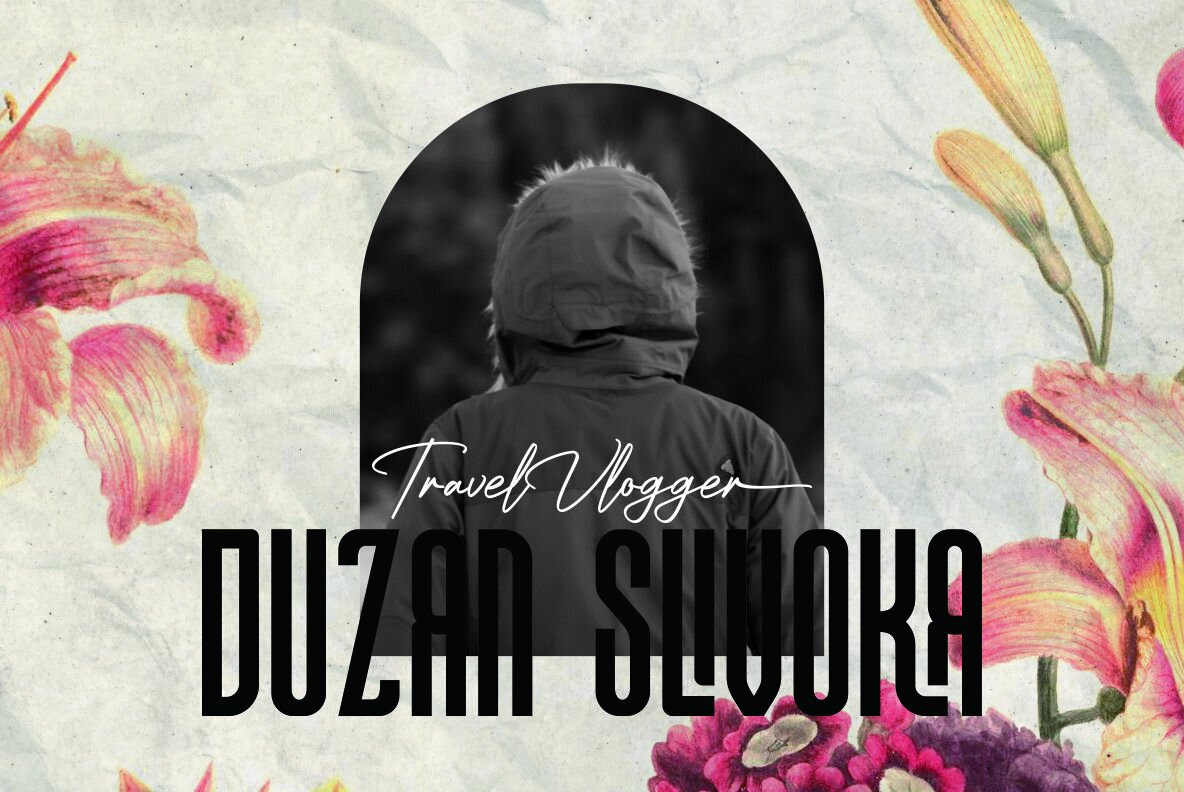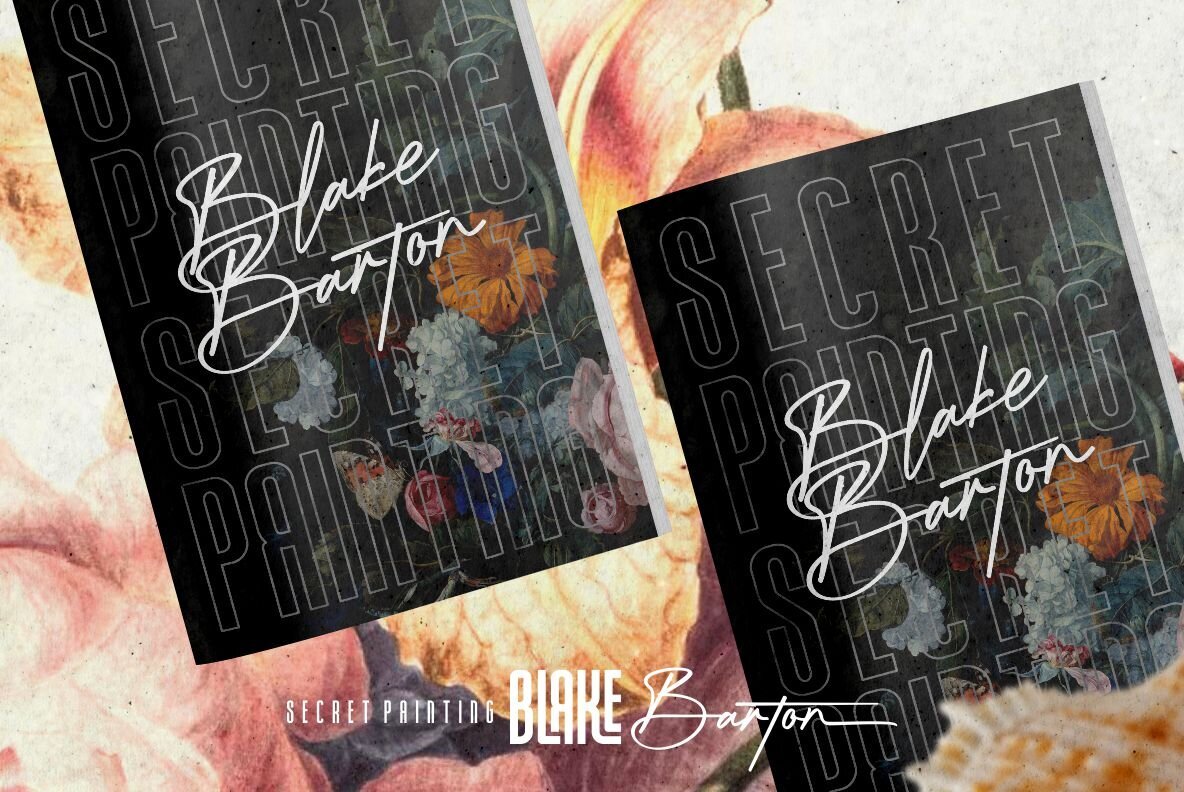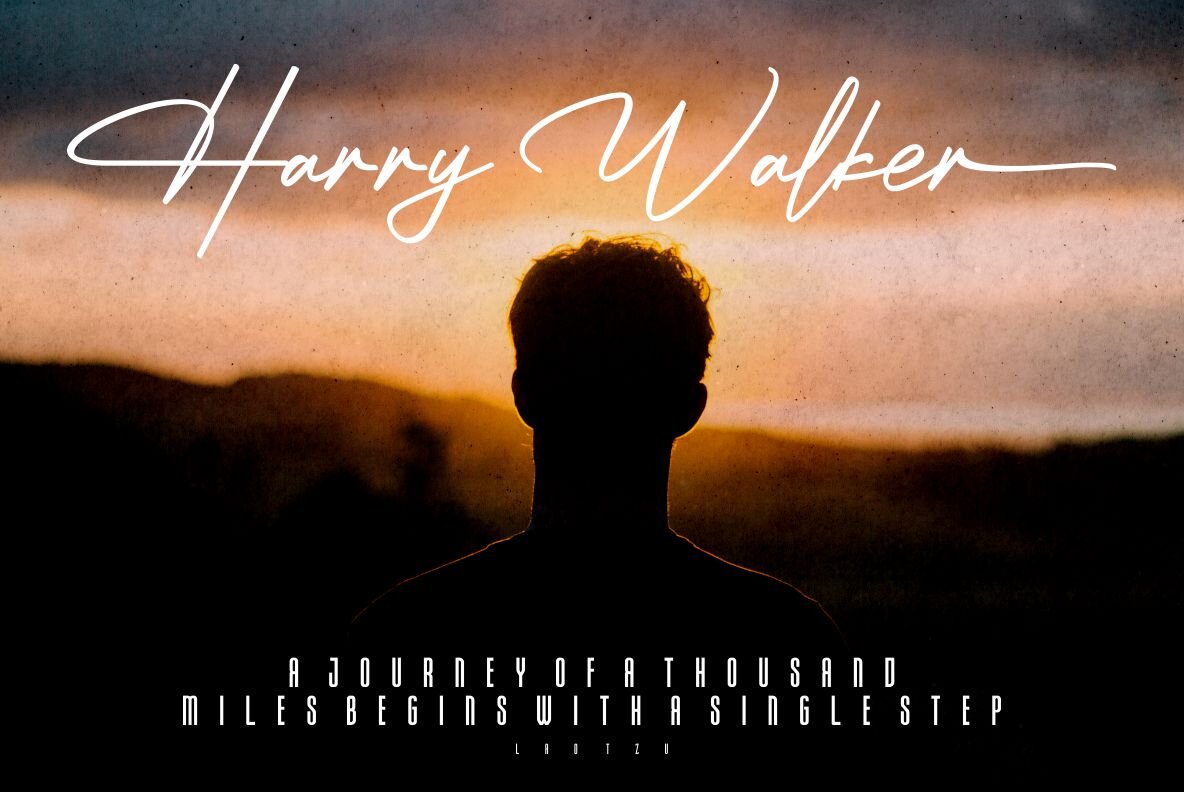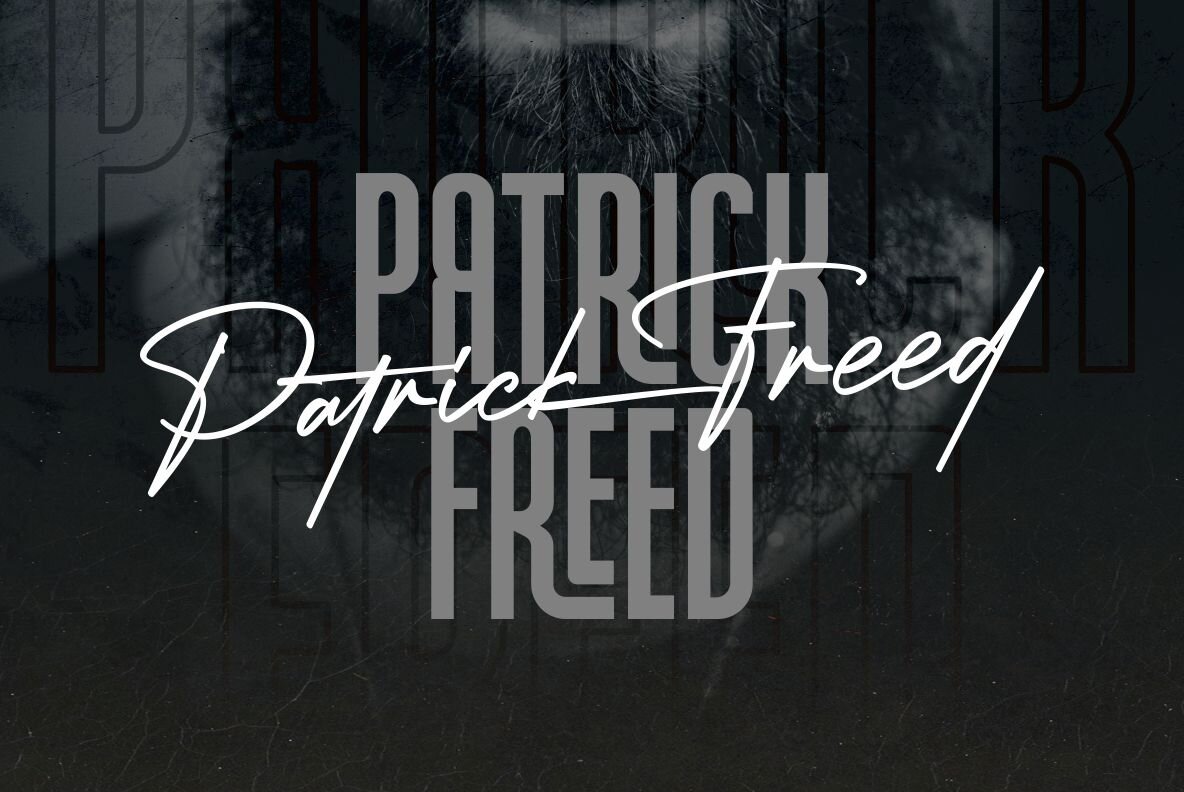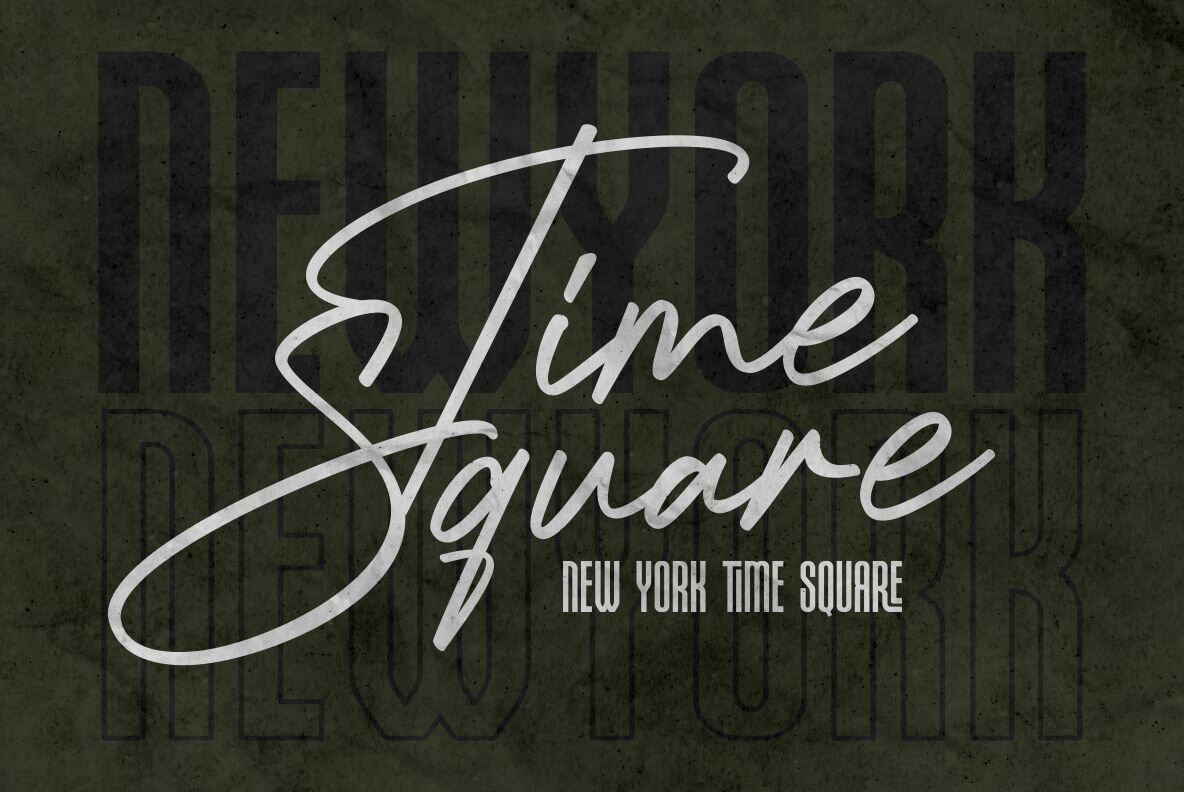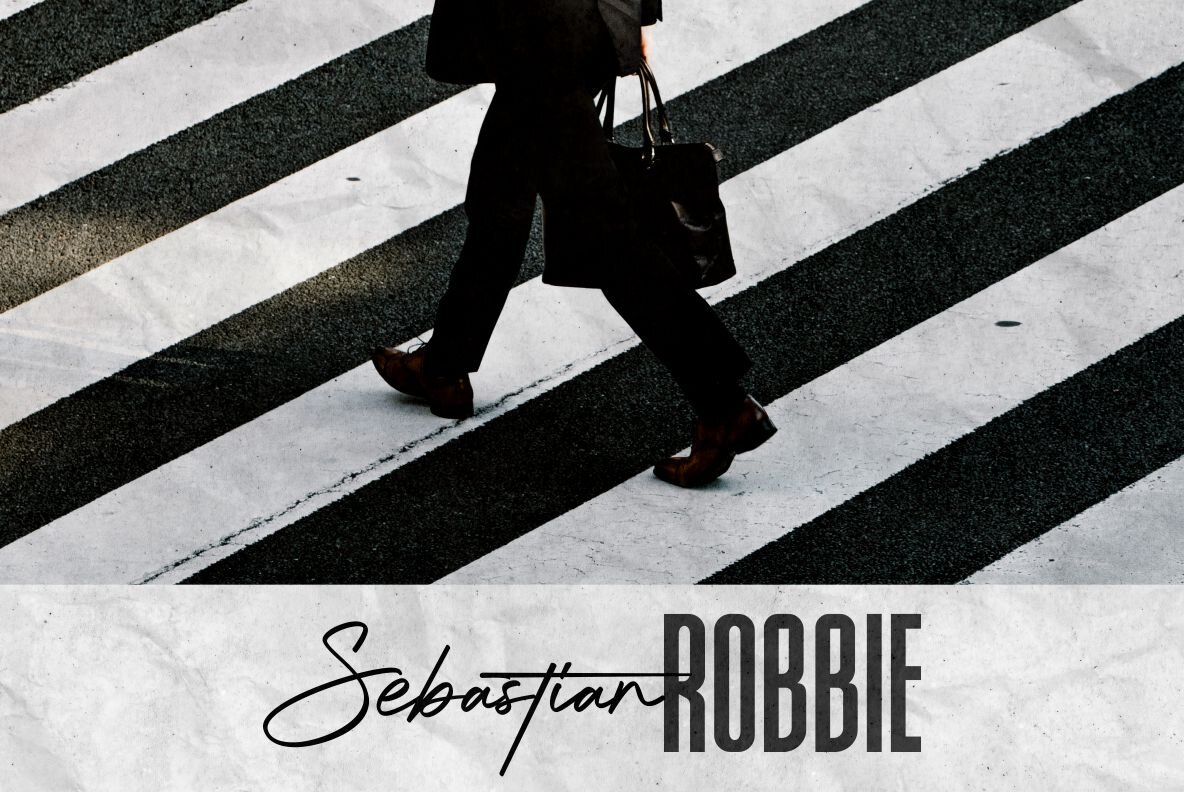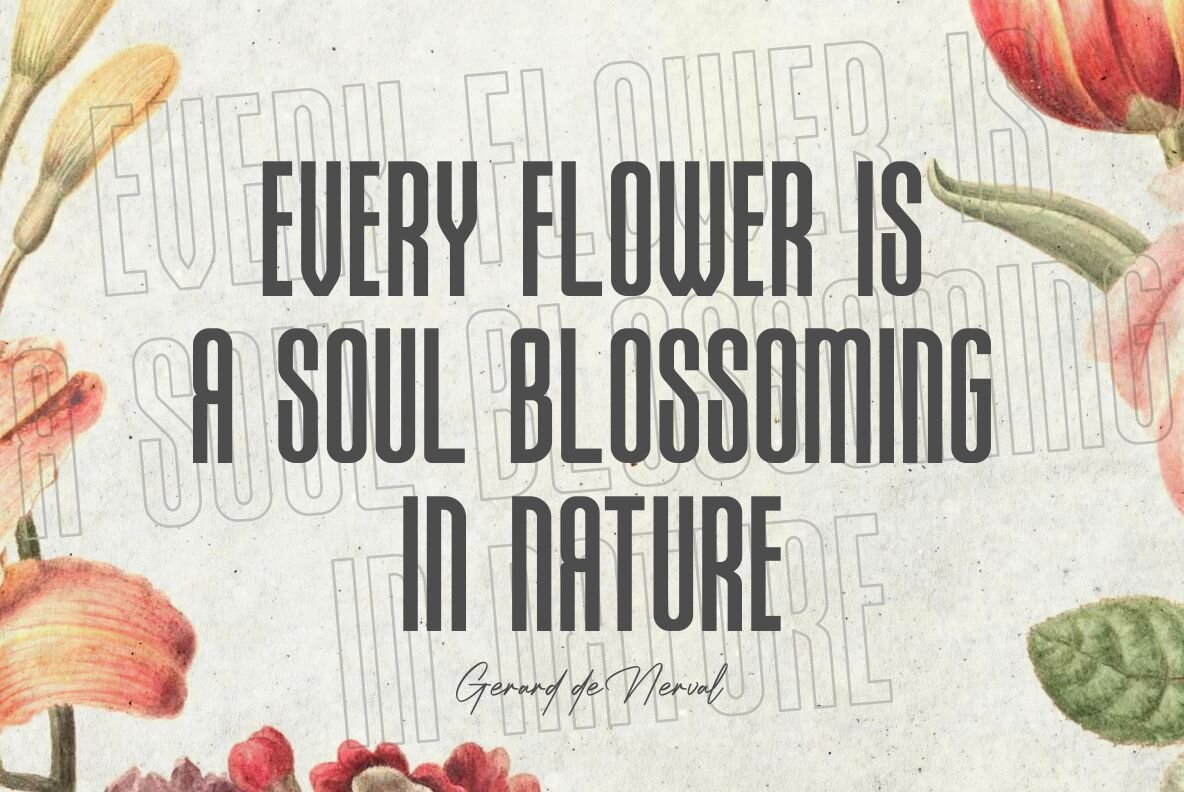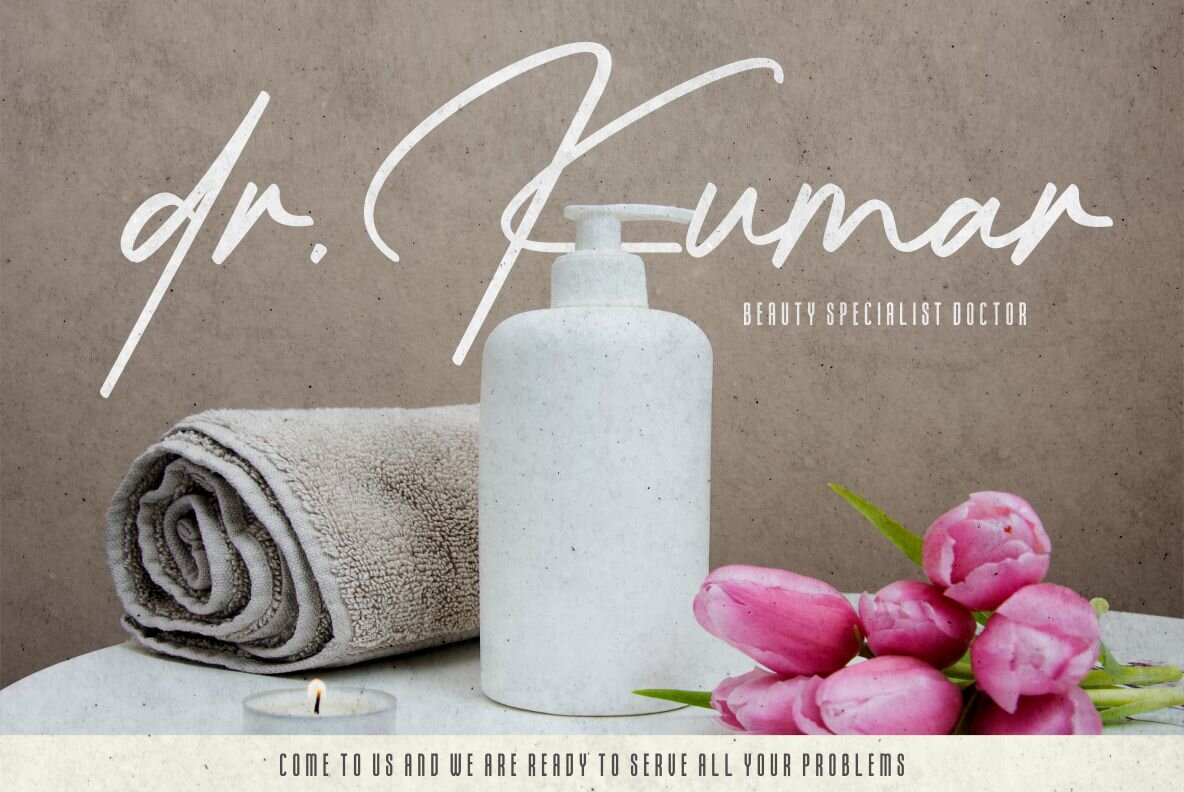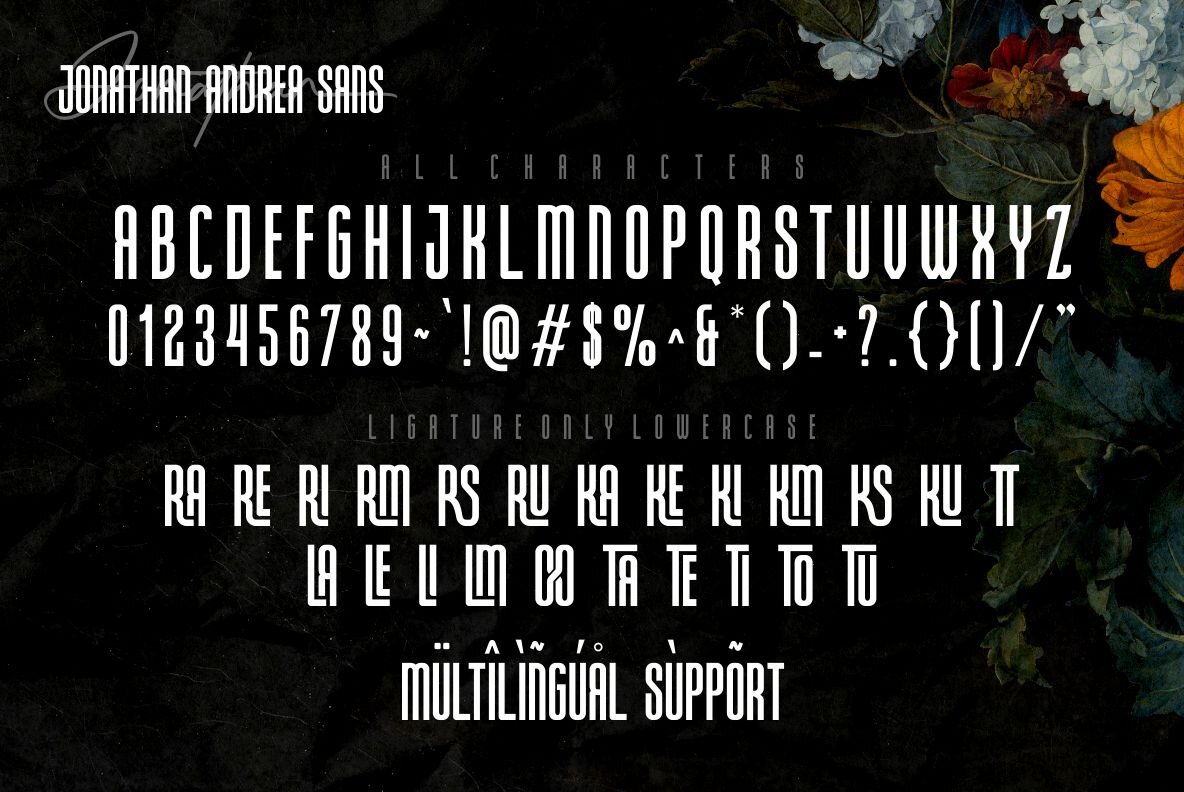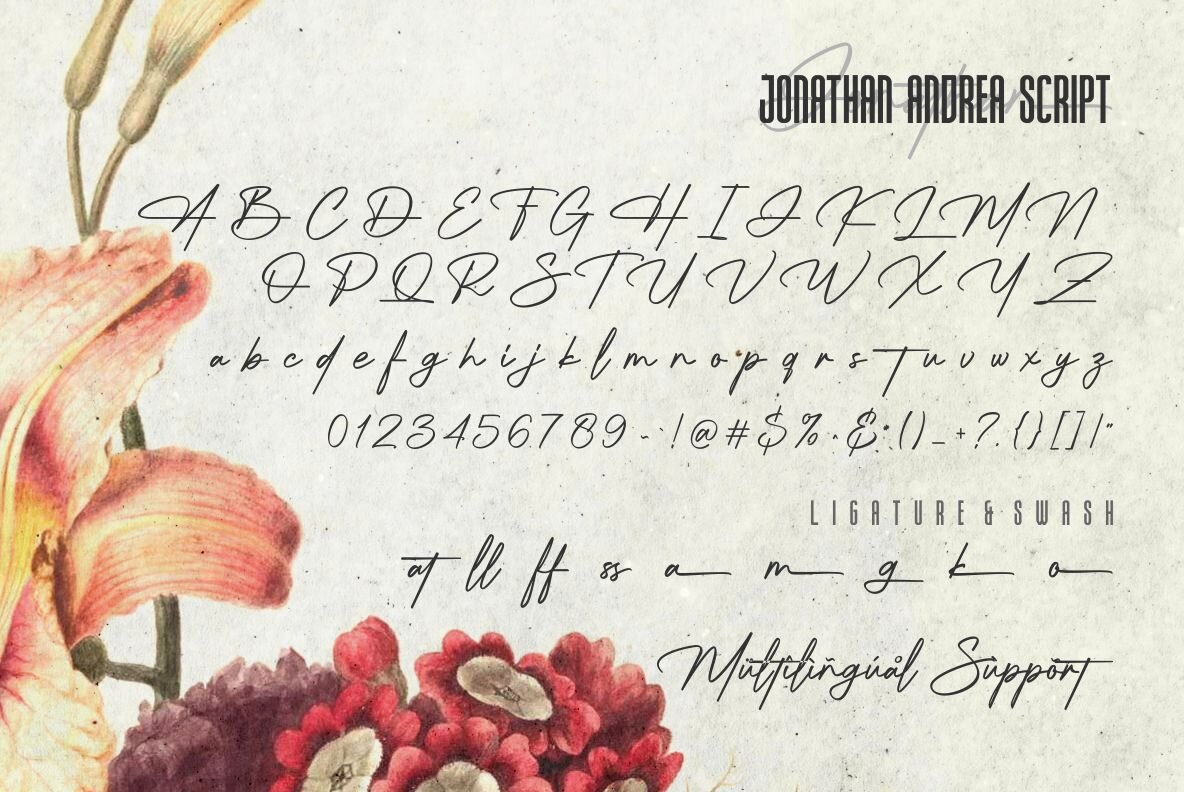
Jonathan Andrea Font
Jonathan Andrea Sans
Jonathan Andrea Sans Outline
Jonathan Andrea Script
The Jonathan Andrea font collection by Ergibi Studio presents a sophisticated mix of modern cursive and elegant sans-serif styles. Crafted with meticulous attention to detail, these fonts create a striking combination suited for designs requiring an elegant, minimalist aesthetic. This font duo is perfect for headlines, wedding invitations, logos, and various advertising purposes, offering a classy and refined visual appeal. Embrace the elegance of Jonathan Andrea for a diverse range of creative applications, from social media to commercial projects.Jonathan Andrea: A Harmonious Font Pairing